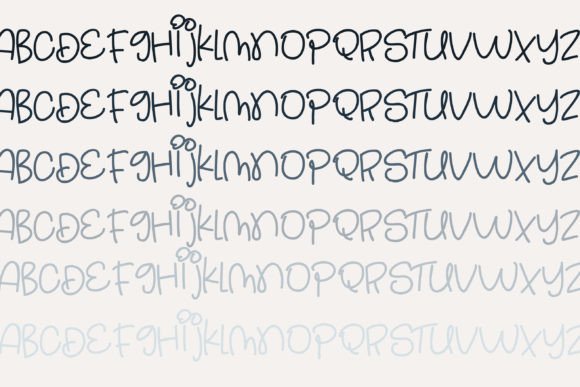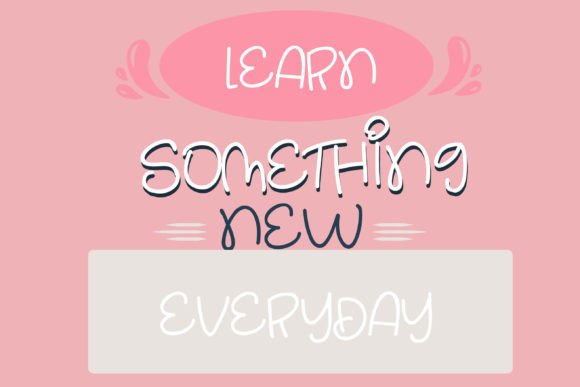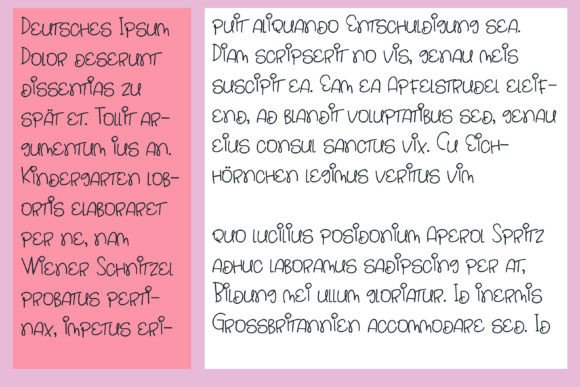
Introducing Clackity Clack Font: The Playful and Whimsical Handwritten Font
Are you looking for a font that can add a touch of personality and whimsy to your designs? Look no further than Clackity Clack Font! This beautiful handwritten font is perfect for fun and creative projects, and its unique and eye-catching look is sure to make your designs stand out.
What is Clackity Clack Font?
Clackity Clack Font is a handwritten font with a playful and whimsical feel. Its thin, rounded strokes give it a delicate and charming look that is perfect for a variety of design projects. Whether you’re creating a logo, a poster, or a social media graphic, Clackity Clack Font is sure to add a touch of personality and fun to your design.
Key Features of Clackity Clack Font
- Playful and Whimsical Feel: Clackity Clack Font has a playful and whimsical feel that is perfect for fun and creative projects.
- Thin, Rounded Strokes: The font’s thin, rounded strokes give it a delicate and charming look that is sure to make your designs stand out.
- Unique and Eye-Catching Look: Clackity Clack Font has a unique and eye-catching look that is sure to add a touch of personality to any design.
- Perfect for Creative Projects: Whether you’re creating a logo, a poster, or a social media graphic, Clackity Clack Font is perfect for a variety of creative projects.
Why Use Clackity Clack Font?
There are many reasons why you should use Clackity Clack Font in your designs. Here are just a few:
- Adds Personality to Your Designs: Clackity Clack Font is sure to add a touch of personality and whimsy to your designs, making them stand out from the crowd.
- Perfect for Fun and Creative Projects: If you’re working on a fun and creative project, Clackity Clack Font is the perfect choice.
- Easy to Read: Despite its playful and whimsical feel, Clackity Clack Font is easy to read, making it perfect for use in a variety of design projects.
- Versatile: Clackity Clack Font can be used in a variety of design projects, from logos and posters to social media graphics and more.
How to Use Clackity Clack Font
Using Clackity Clack Font in your designs is easy! Here are a few tips to get you started:
- Use it in Logos and Branding: Clackity Clack Font is perfect for use in logos and branding, adding a touch of personality and whimsy to your brand.
- Add it to Your Social Media Graphics: Use Clackity Clack Font in your social media graphics to make them stand out and add a touch of personality.
- Use it in Posters and Flyers: Clackity Clack Font is perfect for use in posters and flyers, adding a touch of whimsy and fun to your designs.
- Experiment with Different Colors and Styles: Don’t be afraid to experiment with different colors and styles when using Clackity Clack Font in your designs.
Tips and Tricks for Getting the Most Out of Clackity Clack Font
Here are a few tips and tricks for getting the most out of Clackity Clack Font:
- Pair it with Other Fonts: Clackity Clack Font pairs well with other fonts, so don’t be afraid to experiment with different font combinations.
- Use it in Combination with Images: Clackity Clack Font looks great in combination with images, so consider using it in conjunction with photos or illustrations.
- Experiment with Different Sizes and Styles: Don’t be afraid to experiment with different sizes and styles of Clackity Clack Font to find the look that works best for your design.
Clackity Clack Font is a beautiful handwritten font with a playful and whimsical feel. Its thin, rounded strokes give it a unique and eye-catching look that is sure to add a touch of personality to any design. Whether you’re creating a logo, a poster, or a social media graphic, Clackity Clack Font is perfect for fun and creative projects. So why wait? Download Clackity Clack Font today and start adding a touch of whimsy and fun to your designs!